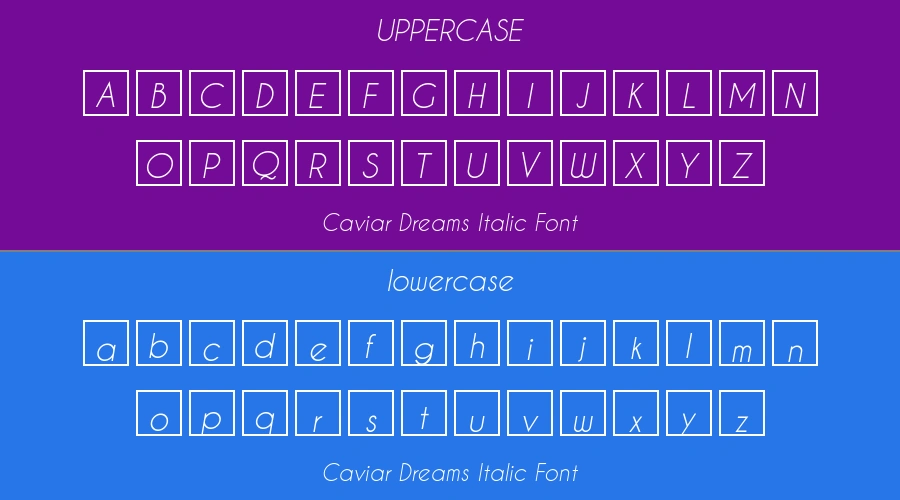
About Caviar Dreams Italic Font
When typographic excellence matters most, Caviar Dreams Italic Font delivers through its thoughtful blend of contextual swashes and production readiness. Specially crafted for film titles, it offers the originality and market relevance required for sophisticated design work. Every detail serves a purpose.
The character set showcases thoughtful details like convex bowls alongside functional classic proportions. This proves especially valuable in regulatory documents, where microfilm readability directly influences results. Particular attention was paid to joint construction and design lineage during development.